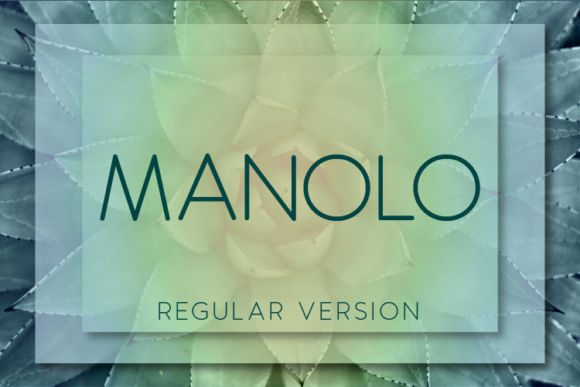
Manolo Regular Font
Indulge in the captivating elegance of Manolo Regular, a sans serif masterpiece that will transform your creative visions into stunning realities. Its crisp lines and timeless allure lend an air of sophistication to every design, making it the perfect choice for branding, websites, and eye-catching headlines.
With Manolo Regular, your words will dance across the screen, leaving a lasting impression on your audience. Its clean and modern aesthetic seamlessly integrates into any design scheme, adding a touch of understated luxury that will elevate your projects to new heights.
Whether you're crafting a sleek logo, designing an informative website, or creating captivating social media graphics, Manolo Regular will effortlessly enhance the impact of your message. Its versatility knows no bounds, empowering you to create stunning visuals that resonate with your target audience.
Embrace the power of Manolo Regular and watch your designs blossom with sophistication and allure. Its timeless charm will captivate hearts and leave a profound impact on all who behold it. Make a bold statement with Manolo Regular, the font that will ignite your creativity and make your designs shine.